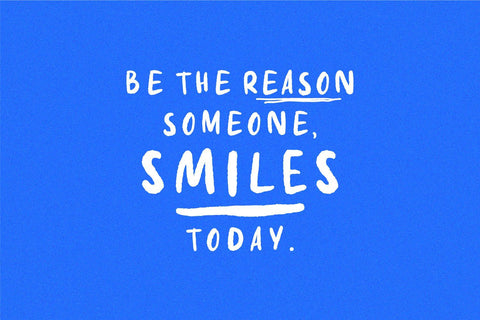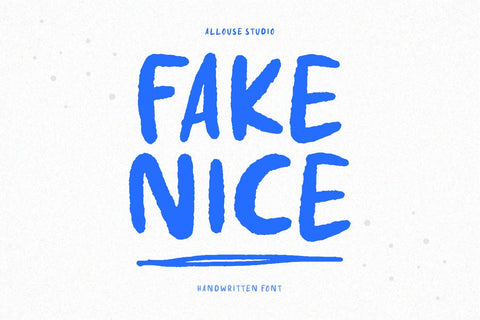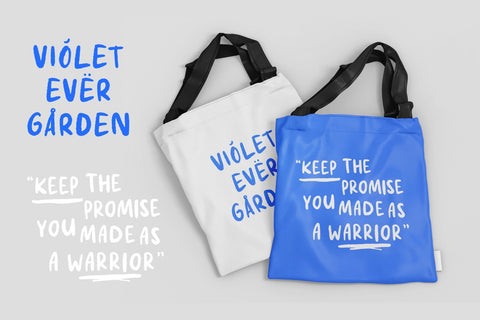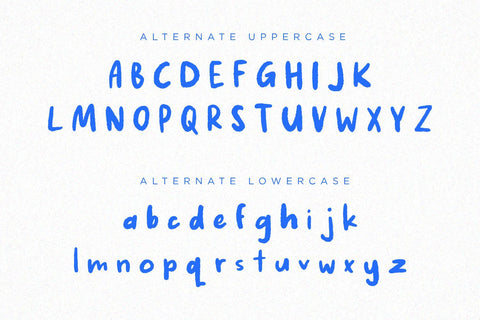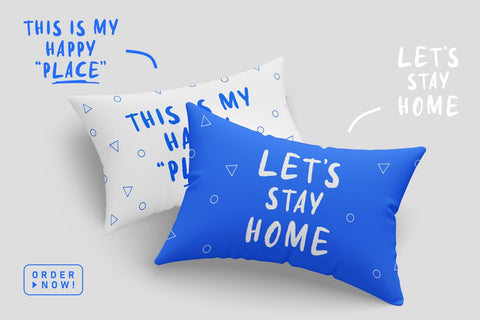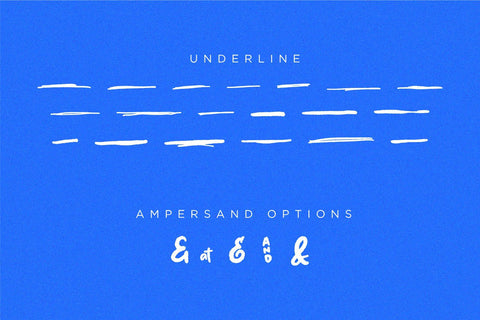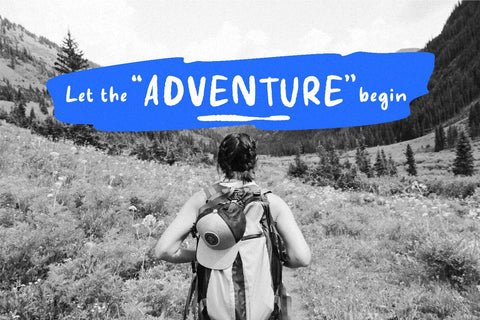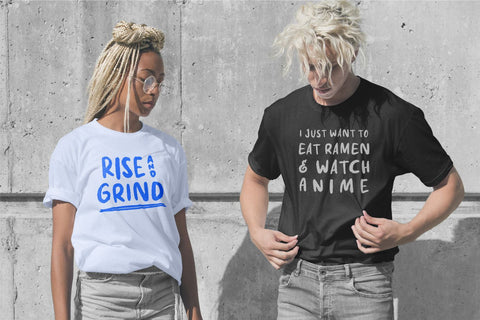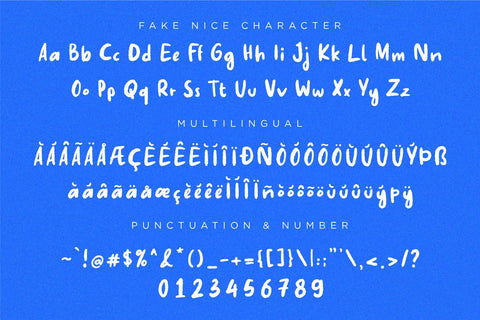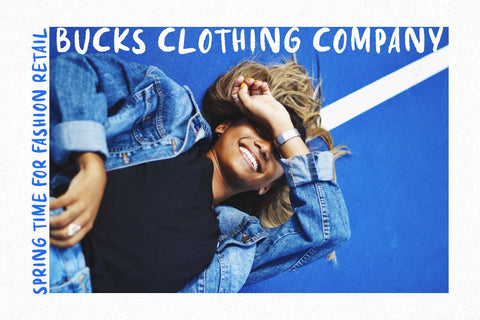
Fake Nice - Handwritten font
Fake Nice is a Handwritten Font.
Fake Nice is perfect for product packaging, branding project, megazine, social media, wedding, or just used to express words above the background.